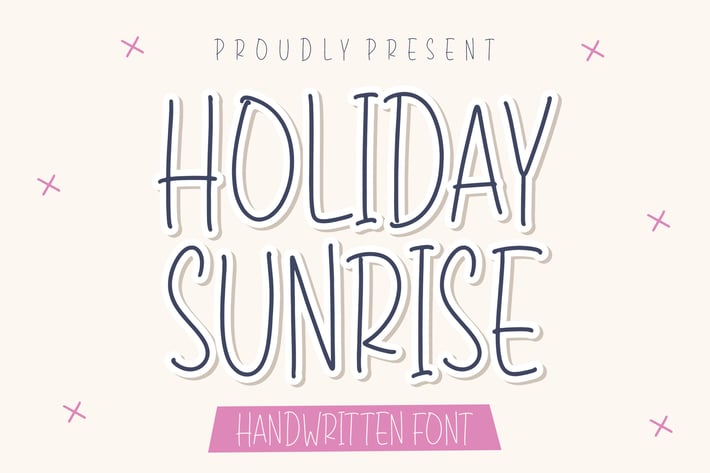
Holiday Sunrise Handwritten Font
Holiday Sunrise is a playful handwritten font with a bright and cheerful vibe. Its smooth strokes and casual style create a friendly, approachable look that feels natural and warm. This font captures the essence of fun, positivity, and creativity—perfect for projects that need a touch of personality and charm. With its versatile format, Holiday Sunrise works beautifully across digital and print platforms, making it a great choice for modern creatives, small businesses, and personal projects.
+ Handwritten font style
+ Casual and playful look
+ Regular and italic versions
+ Multilingual support
+ Versatile for both digital and print
+ Posters and flyers
+ Social media graphics
+ Invitations and greeting cards
+ Branding projects
+ Children’s books or playful designs
+ Quotes and wall art
+ Creative DIY projects
Bring joy and personality to your designs with the carefree charm of Holiday Sunrise!